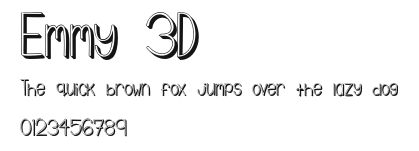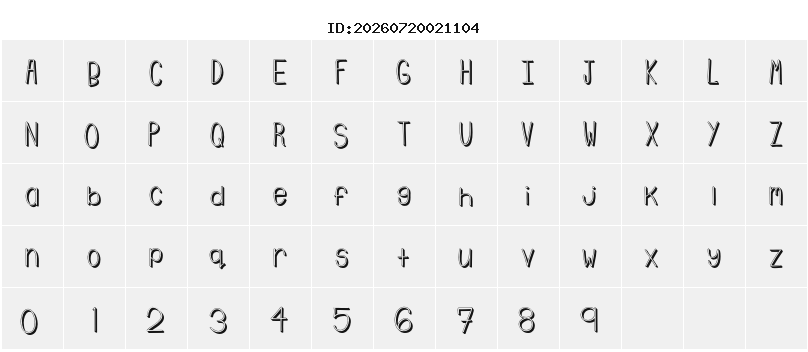
• Font Name: Emmy 3D
• Designer: Emily
• Manufacturer: Emily Lime Design
About Emmy 3D.otf
Emmy 3D.otf is a modern, elegant sans-serif font designed for ultimate readability and visual harmony. Perfect for branding, headlines, web design, and print materials.